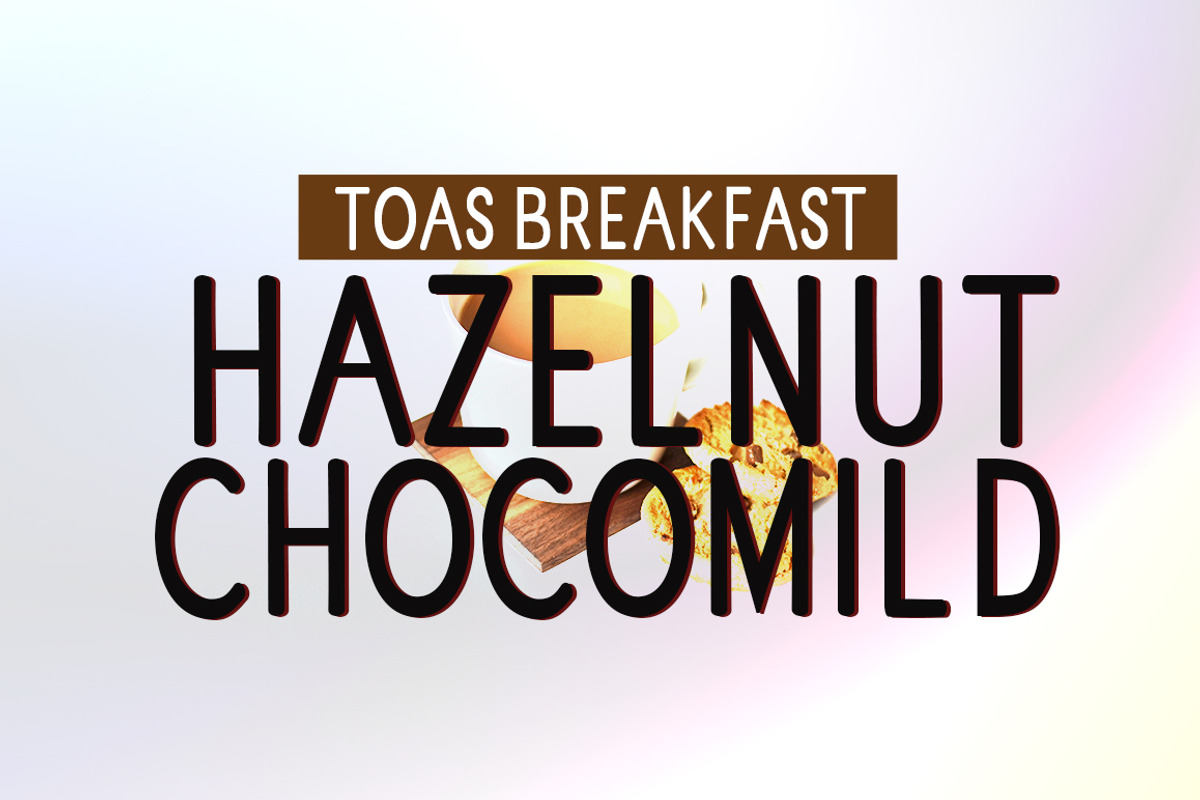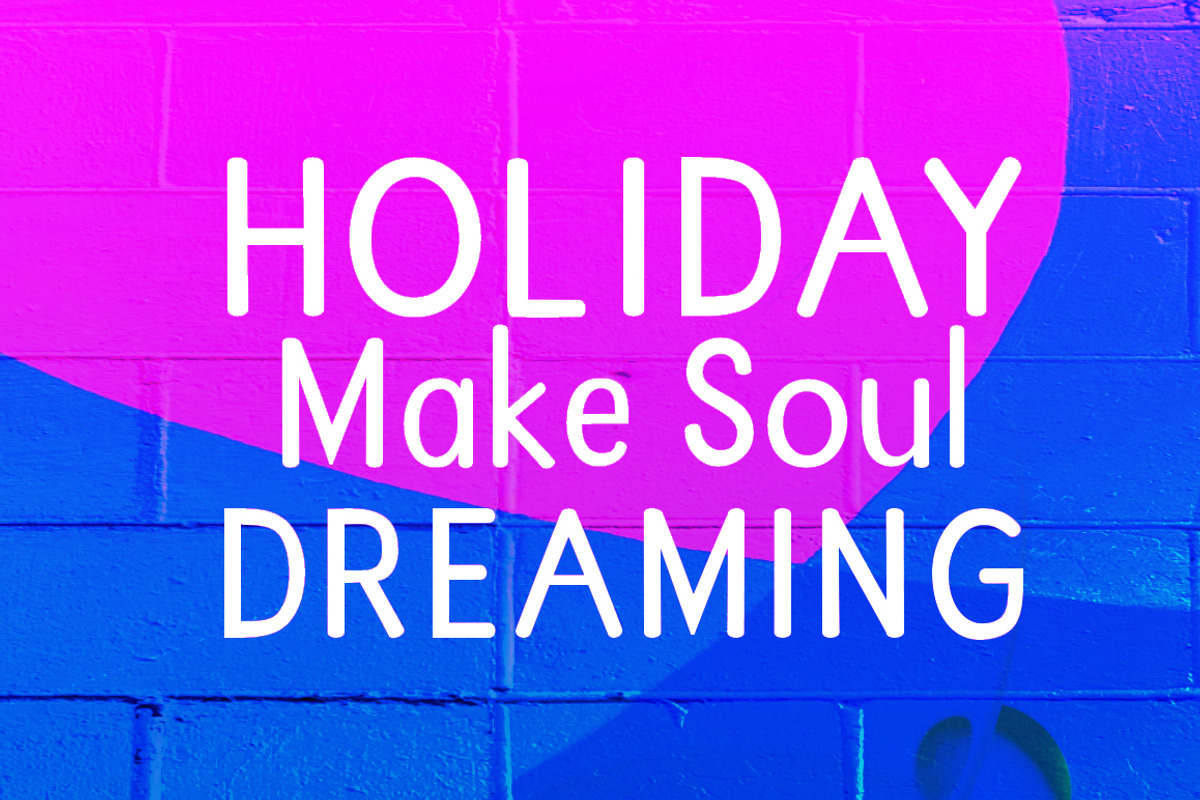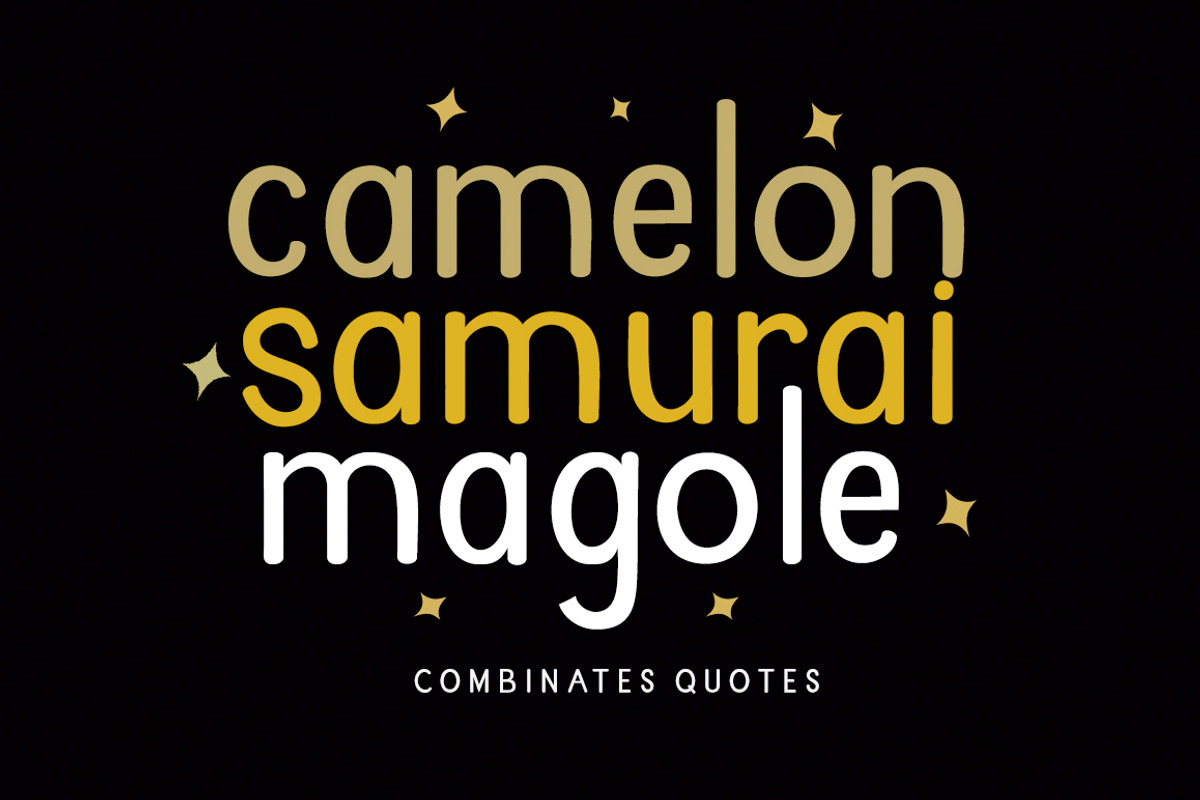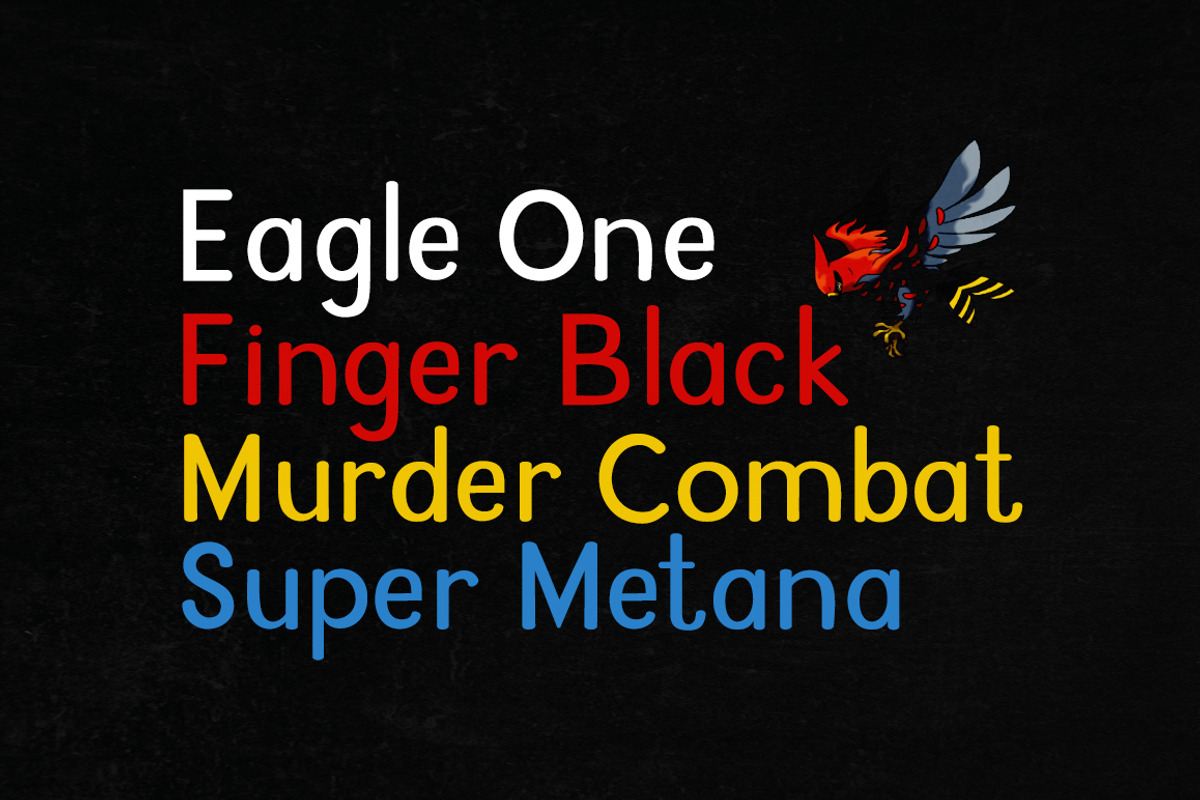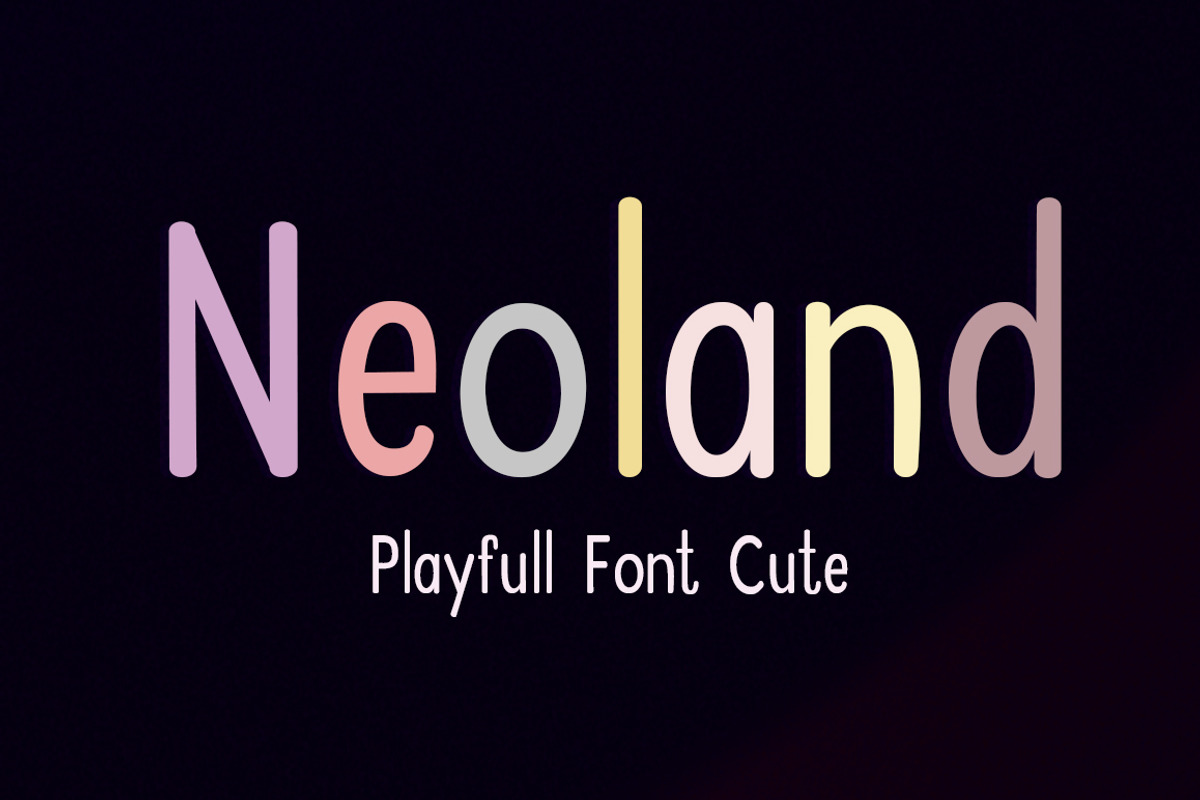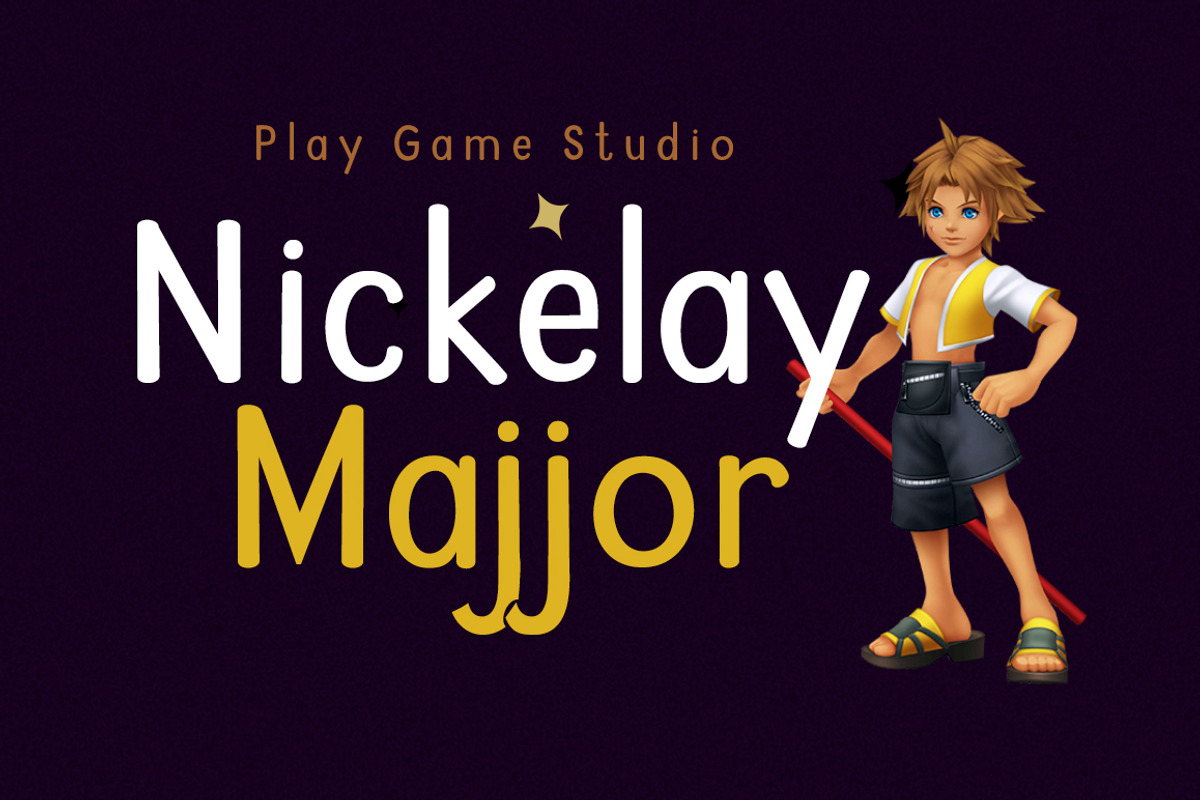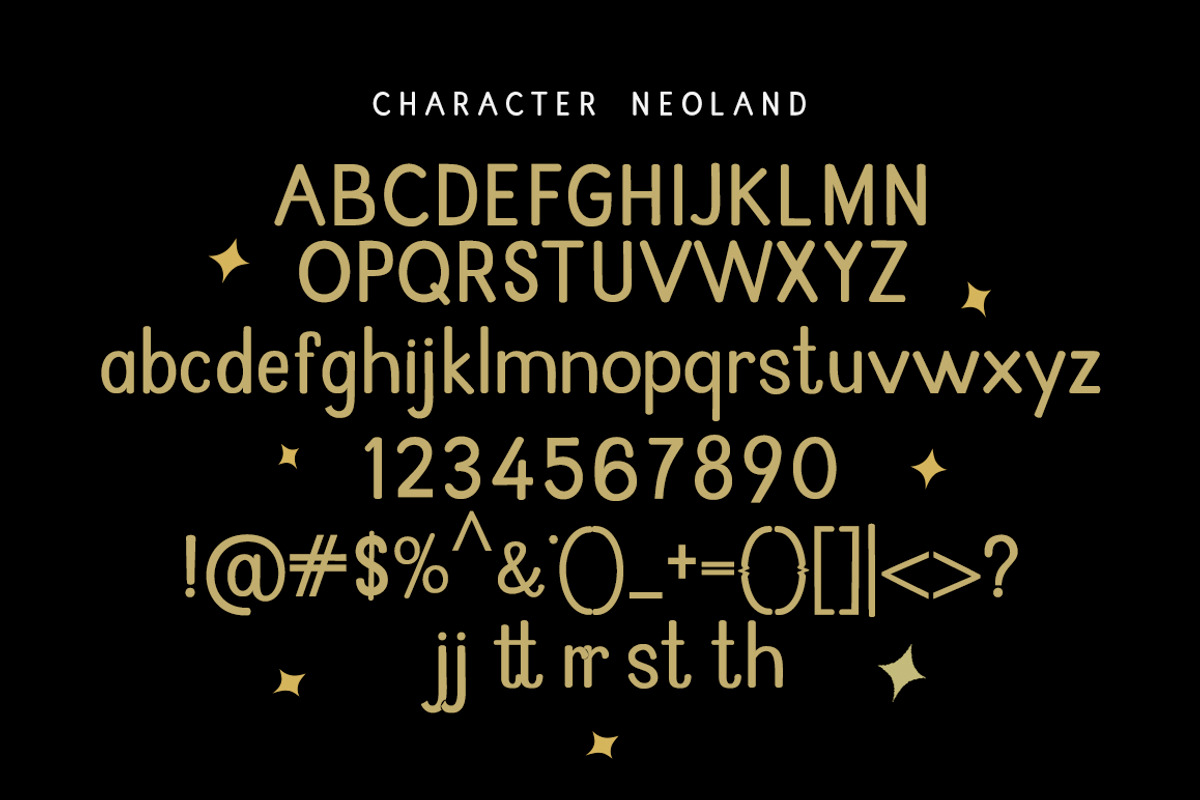
Neoland
Neoland is a round Comic display font, a very unique trendy font with a combination of modern character bindings, and I think this product suits the teaser display theme in every headline design, business cards, leaflets, magazines, children's events, and brand screen printing.